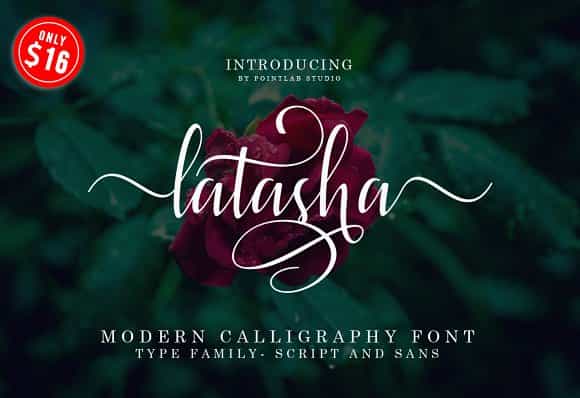
Latasha is a new fresh & modern script with a handmade calligraphy style, decorative characters and a dancing baseline. So beautiful on invitation like greeting cards, branding materials, business cards, quotes, posters, and more!